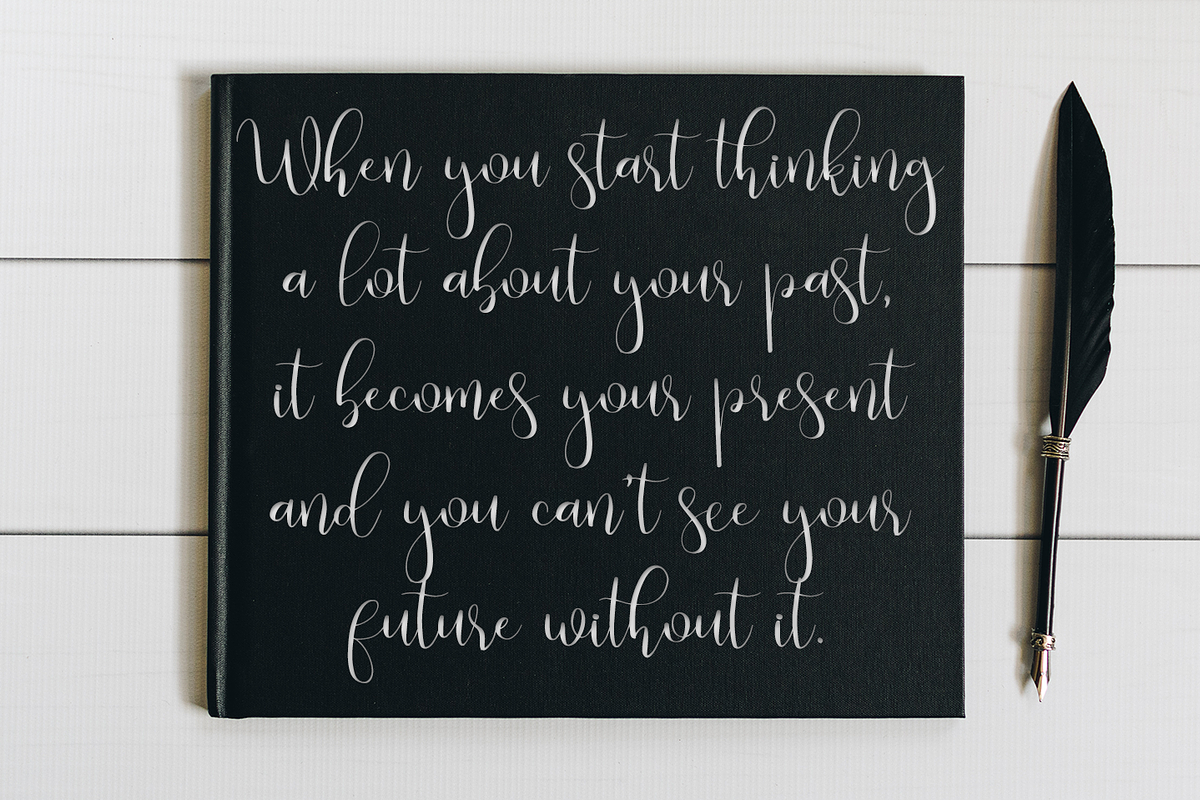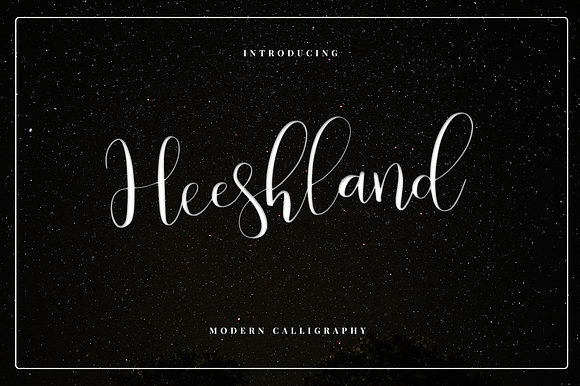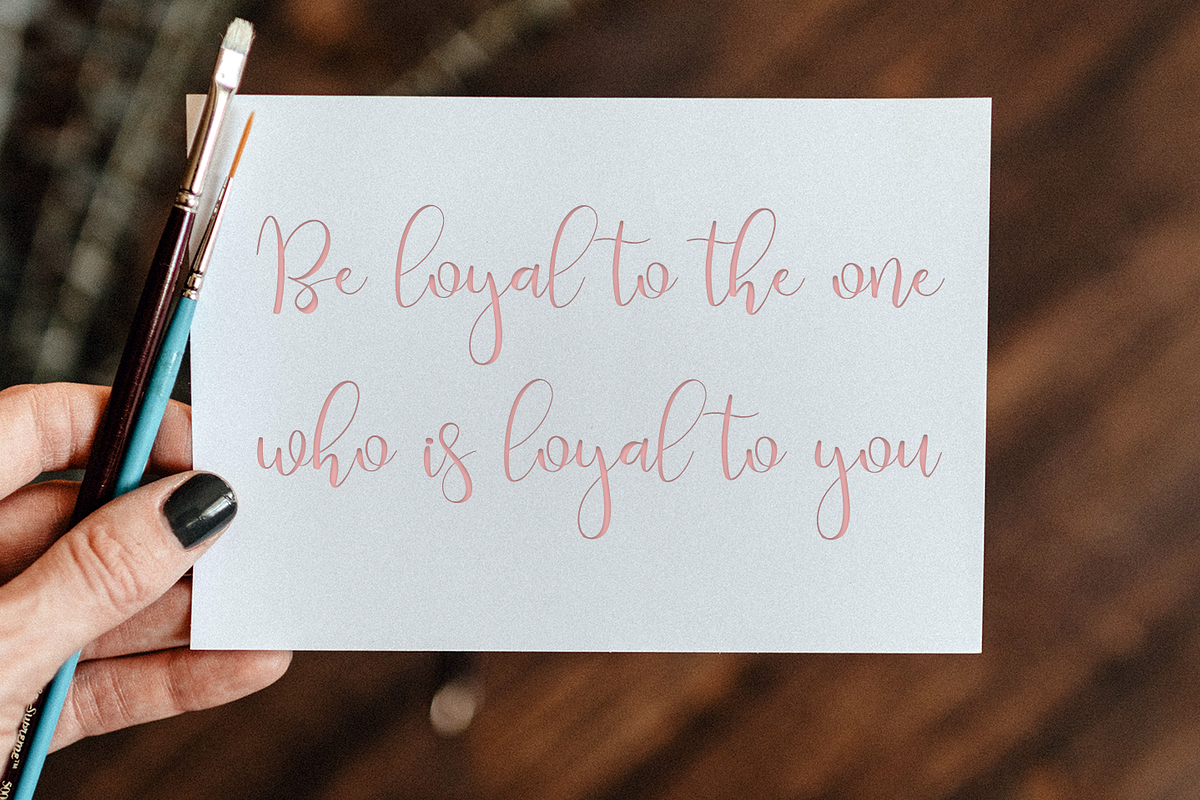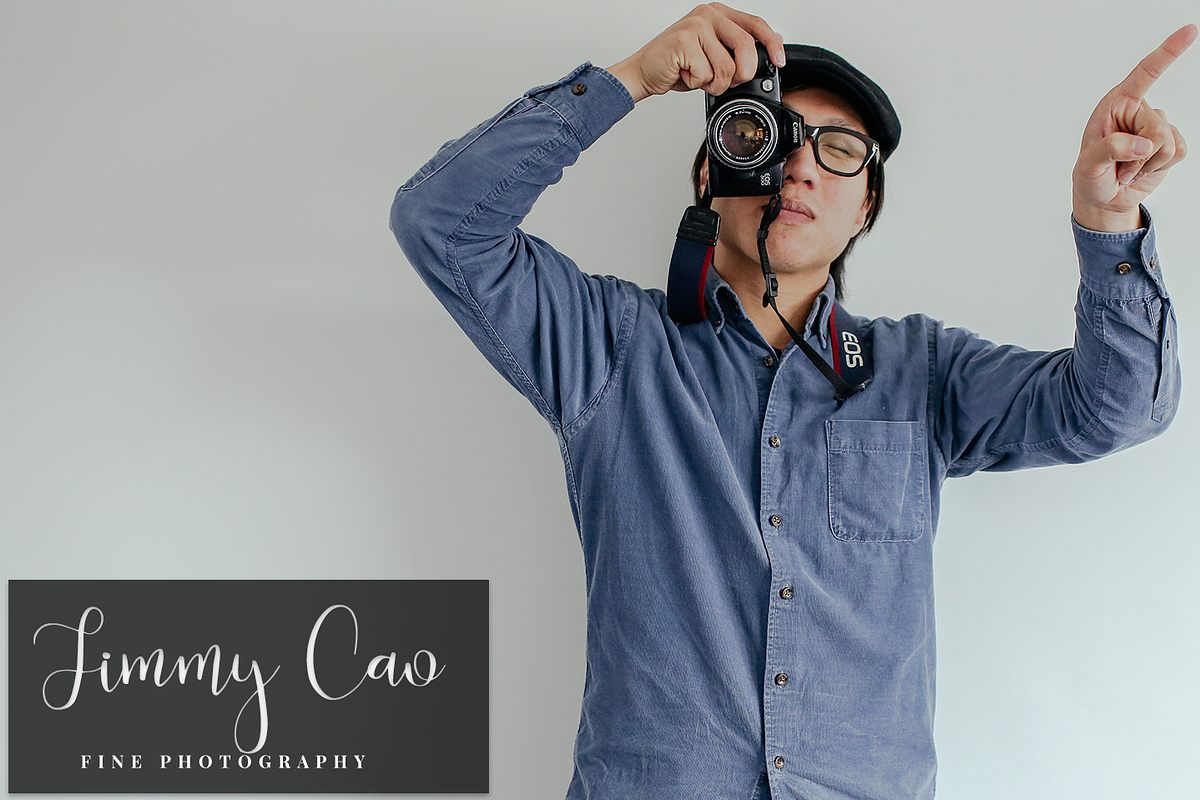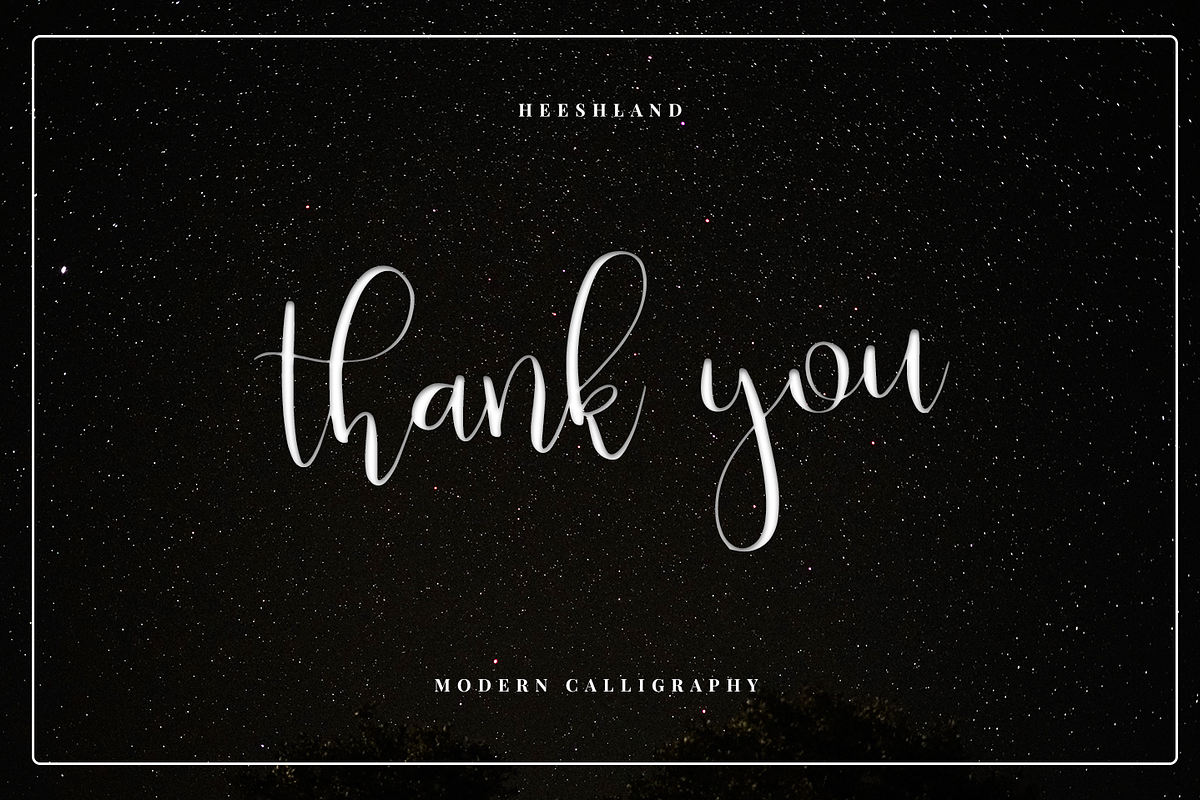
Heeshland - Modern calligraphy font
Heeshland - a new fresh handmade calligraphy font.
Very suitable for greeting cards, branding materials, business cards, quotes, posters, and more!This font are perfect for wedding postcard. Or you can create perfect and unique design of your logo, blog, stationery, marketing, magazines and more :)
aa ee ll mm nn rr ss th tt
Heeshland - Modern calligraphy font by Quothron fits naturally into Branding, posters, packaging, typography.